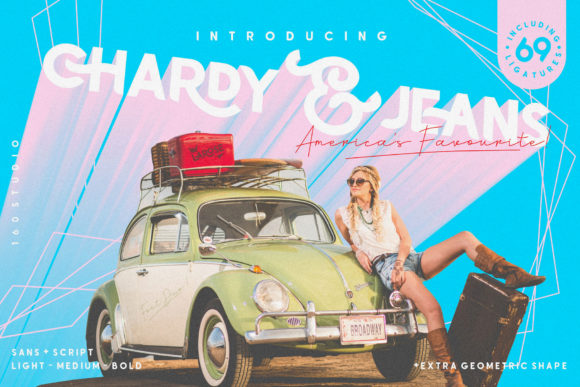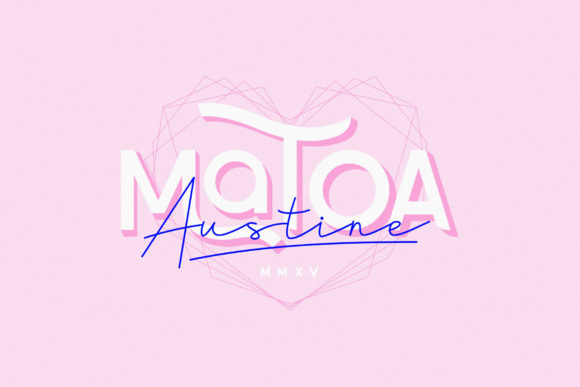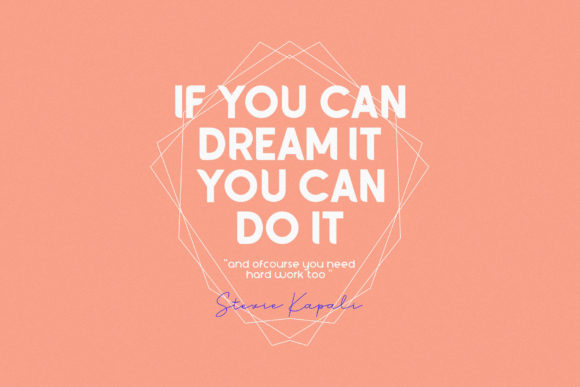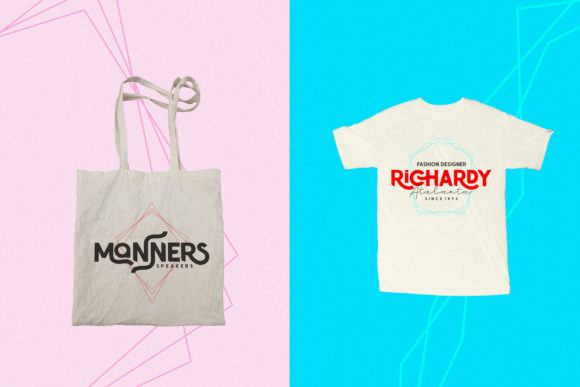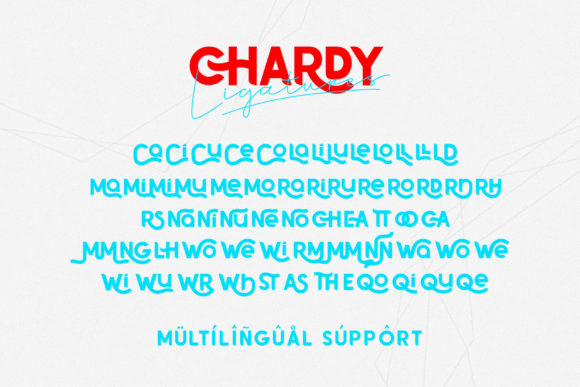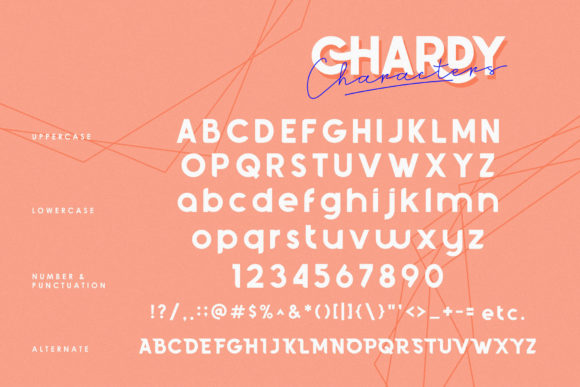
Introducing Chardy Font: The Ultimate Display Font for Fun and Positivity
Are you tired of using the same old fonts for your designs? Look no further than Chardy Font, a simple yet incredibly good-looking display font that’s sure to radiate fun and positivity in any project. In this article, we’ll dive into the world of Chardy Font, exploring its unique features, uses, and benefits for designers and crafters alike.
What is Chardy Font?
Chardy Font is a display font designed to make a statement. Its simplicity is part of its charm, making it easy to read and understand, while also conveying a sense of playfulness and energy. The font’s clean lines and rounded edges give it a friendly and approachable feel, perfect for designs that require a touch of whimsy and personality.
Key Features of Chardy Font
- Simple yet striking design: Chardy Font’s minimalist approach makes it stand out from more complex fonts, allowing it to shine in any design.
- Fun and positivity: The font’s playful vibe is infectious, making it perfect for projects that require a lighthearted and uplifting tone.
- Highly versatile: Chardy Font can be used in a wide range of designs, from digital projects to print materials, and from headings to titles.
- Easy to read: Despite its creative and playful nature, Chardy Font remains highly legible, making it suitable for use in various contexts.
Who Can Benefit from Chardy Font?
Chardy Font is an excellent addition to any designer’s toolkit, particularly those who work on projects that require a dash of personality and fun. Some examples of designers who can benefit from Chardy Font include:
- Graphic designers: Chardy Font is perfect for creating eye-catching titles, headings, and promotional materials.
- Digital artists: The font’s playful nature makes it an excellent choice for digital art projects, such as illustrations, animations, and video games.
- Crafters and DIY enthusiasts: Chardy Font can add a personal touch to craft projects, such as handmade cards, gift tags, and signage.
How to Use Chardy Font Effectively
To get the most out of Chardy Font, consider the following tips:
- Use it as a headline font: Chardy Font’s bold and playful nature makes it perfect for grabbing attention as a headline font.
- Pair it with complementary fonts: Combine Chardy Font with other fonts to create a unique and visually appealing typography.
- Experiment with colors and textures: Add an extra layer of depth and interest to your design by experimenting with different colors and textures.
Chardy Font is a game-changer for designers and crafters looking to add a touch of fun and positivity to their projects. Its simple yet striking design, versatility, and ease of use make it an excellent addition to any creative toolkit. Whether you’re working on a digital project or a crafty endeavor, Chardy Font is sure to bring a smile to your face and inspire your creativity.